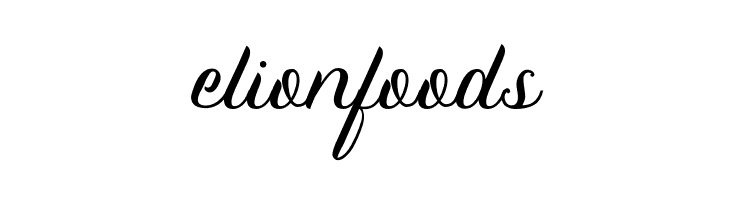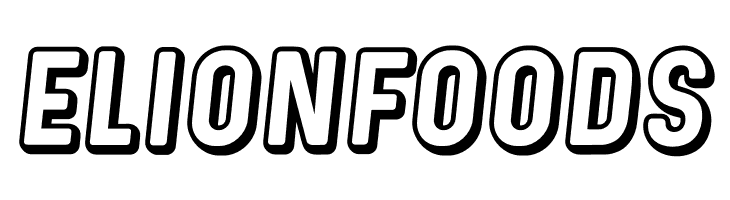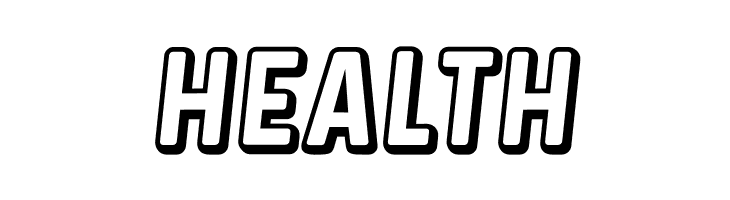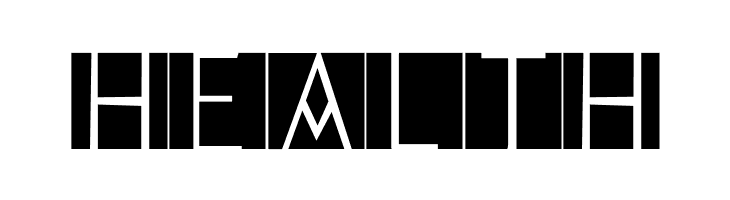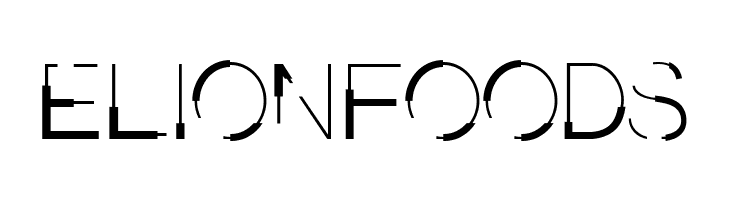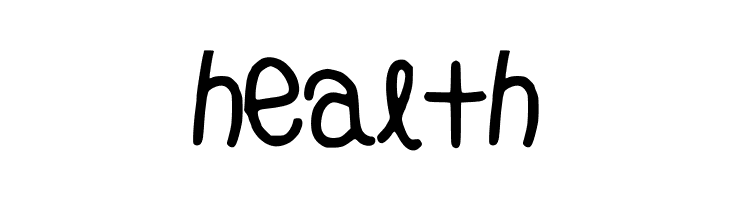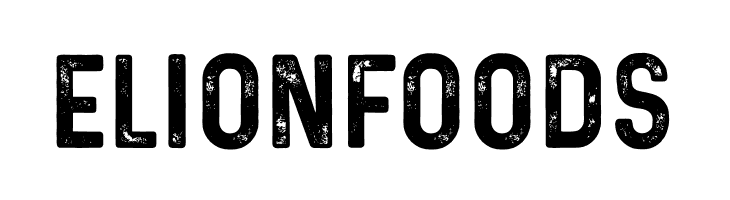
A hand-drawn, brush-style font with dynamic strokes and an artistic flair.
A bold, distressed font with a grunge-like, hand-drawn appearance.
A playful handwritten font with irregular strokes and a casual style.
A playful, hand-drawn font with brush-like strokes and an artistic vibe.
A fluid and elegant script font with natural, connected strokes.
A playful, handwritten-style font with rounded, irregular letterforms.
A bold, distressed font with a vintage, textured appearance.
Bold, italic font with shadowed, three-dimensional effect.
Illustrative display font with Pre-Raphaelite women as characters.
A bold, geometric font with a historical and architectural style.